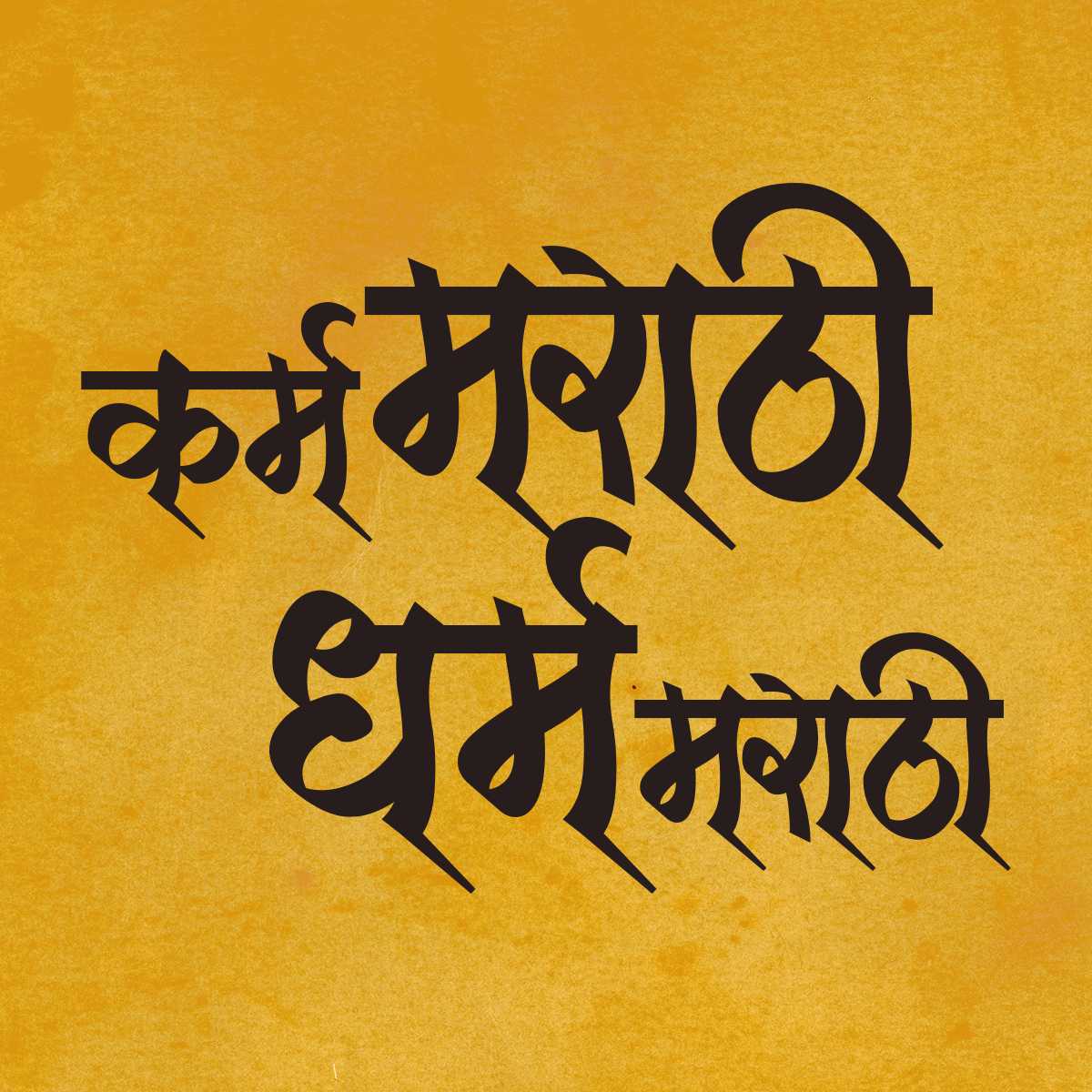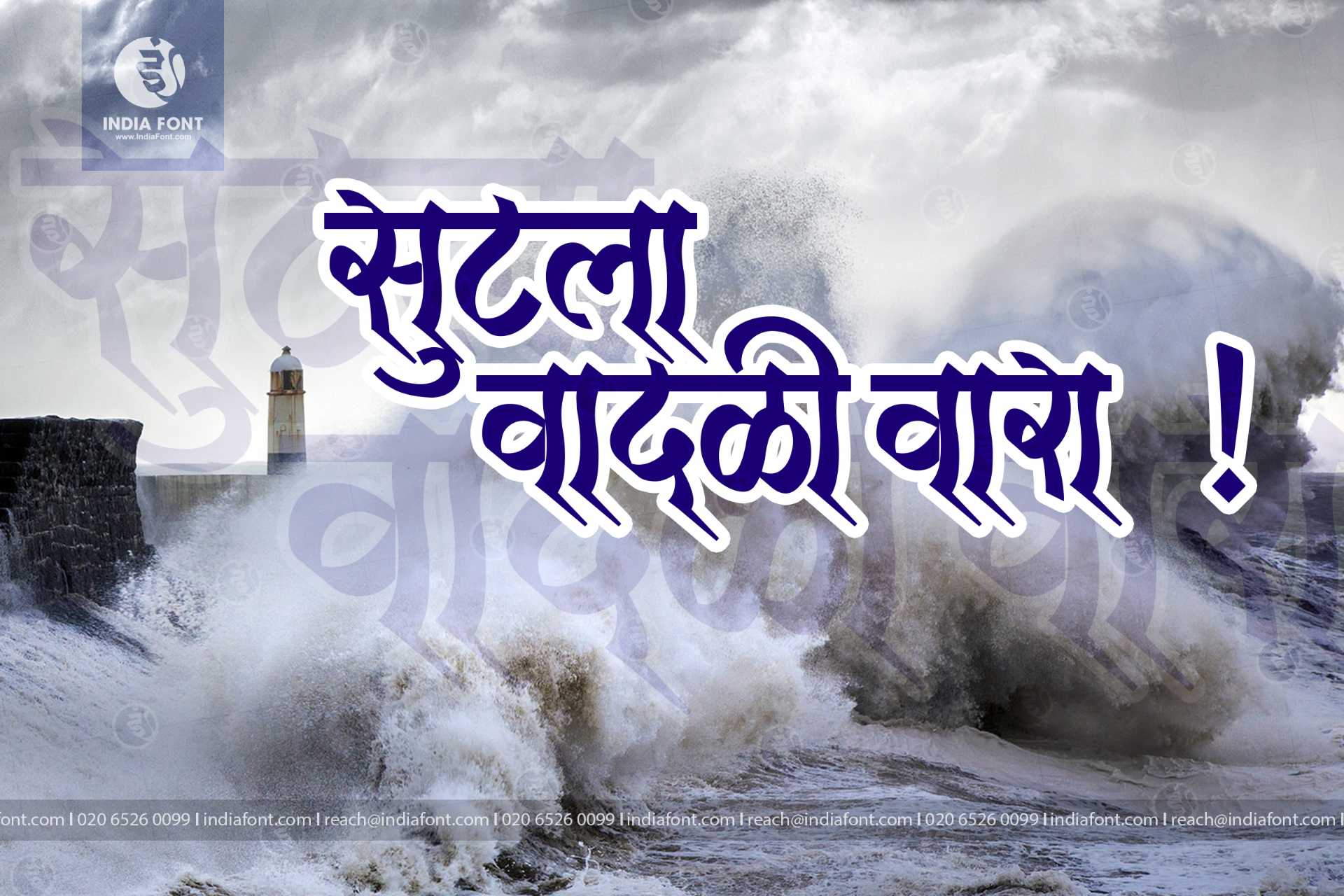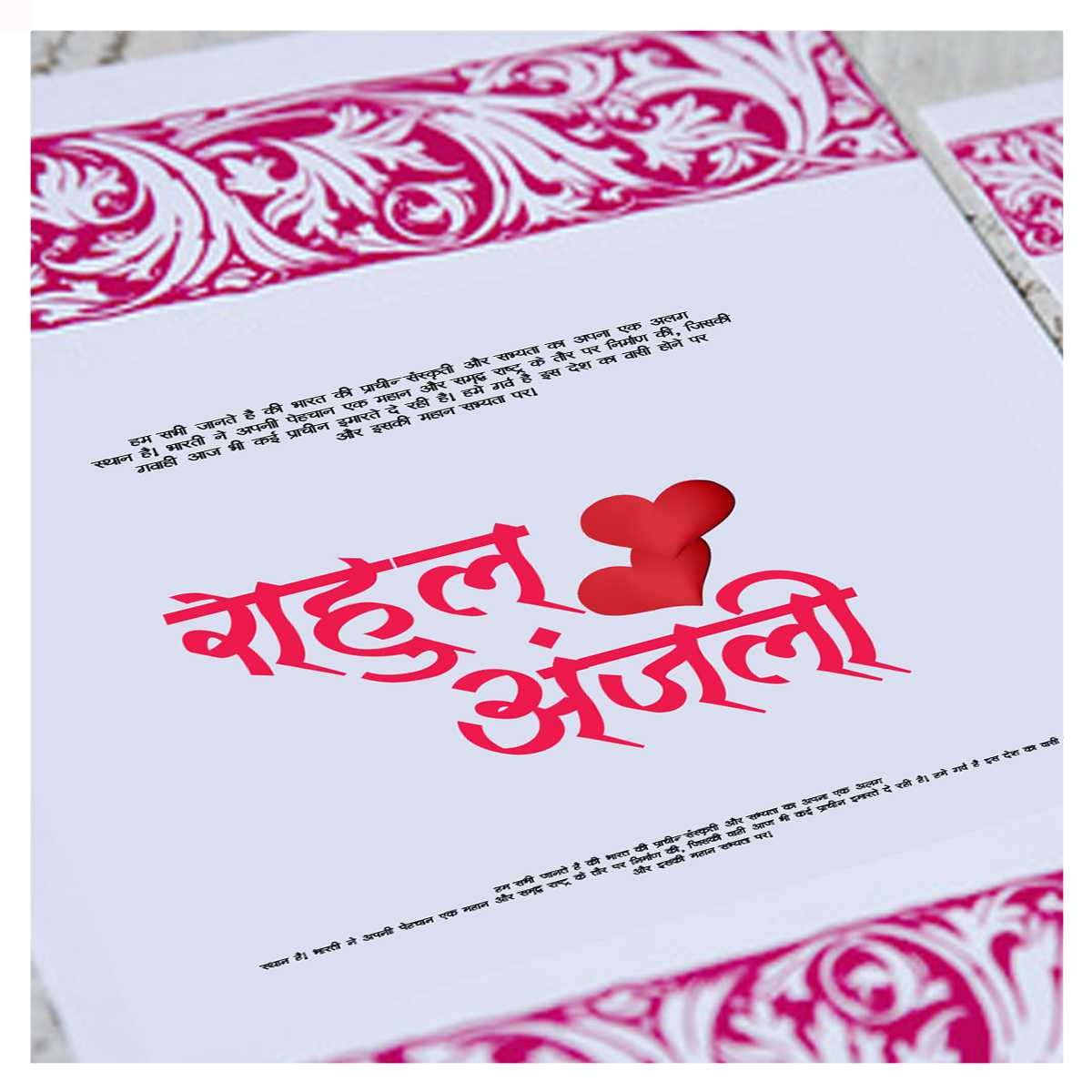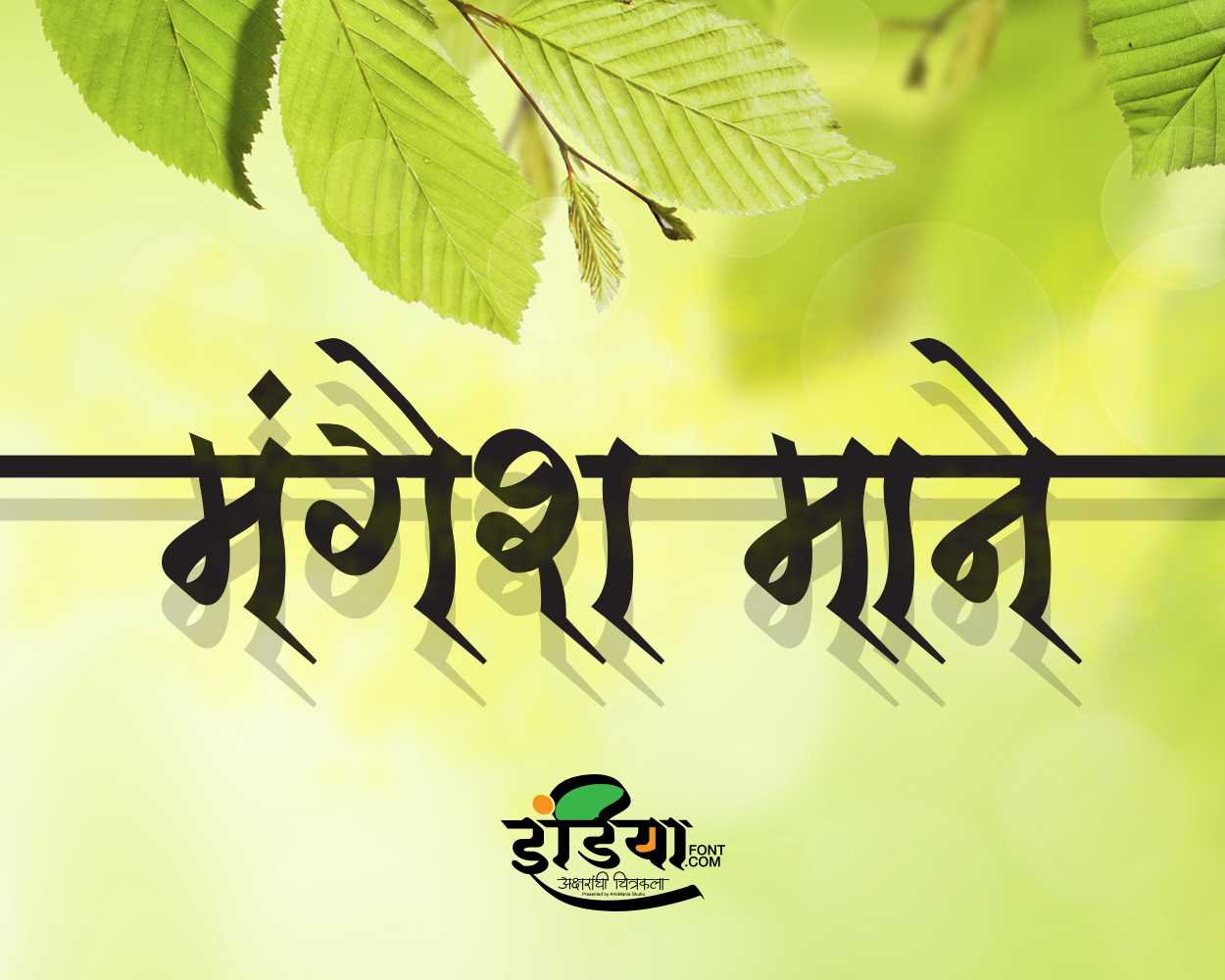
AMS Calligraphy 9
Unleash your creativity with AMS Calligraphy 9, a contemporary font that seamlessly blends style and elegance. Perfect for modern and traditional projects alike, this free AMS font brings a touch of refinement to your designs.
About AMS Calligraphy 9 Font
Unleash your creativity with AMS Calligraphy 9, a contemporary font that seamlessly blends style and elegance. Perfect for modern and traditional projects alike, this free AMS font brings a touch of refinement to your designs. This calligraphy font combines elegance with functionality, making it perfect for various design applications.
AMS Calligraphy 9 is a professionally crafted calligraphy typeface that brings clarity and style to your projects. Designed with attention to detail, it supports hindi and marathi characters flawlessly.
Whether you're working on wedding-materials, headers-titles, logos, or other creative projects, AMS Calligraphy 9 delivers consistent performance across both digital and print media. This carefully designed typeface ensures readability and visual appeal in all your design work.
AMS Calligraphy 9 excels in various design scenarios. Here are the most suitable applications:
About AMS Calligraphy 9 Typography Style
AMS Calligraphy 9 is a professionally crafted calligraphy font that exemplifies modern Hindi typography design. This free font is perfect for designers seeking professional branding and logo design projects.
Available in 1 weight and supporting hindi, marathi scripts, AMS Calligraphy 9 offers exceptional versatility for both digital and print media. Whether you're working on wedding-materials, headers-titles, logos, this carefully designed typeface ensures consistent quality and professional results across all your typography projects.